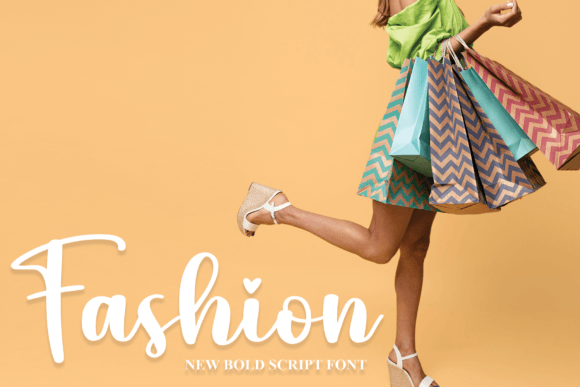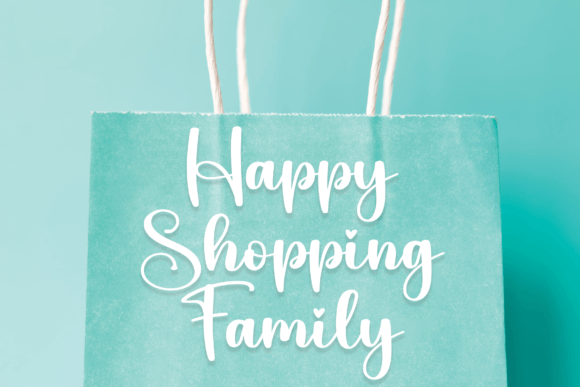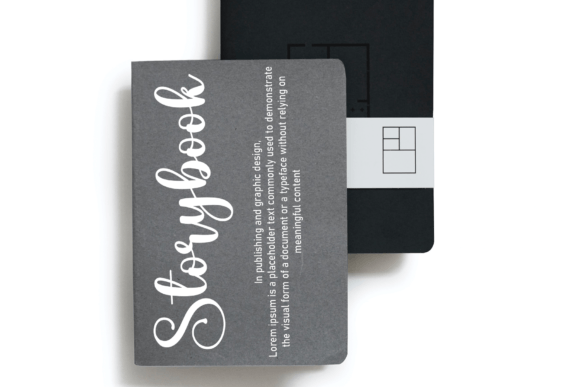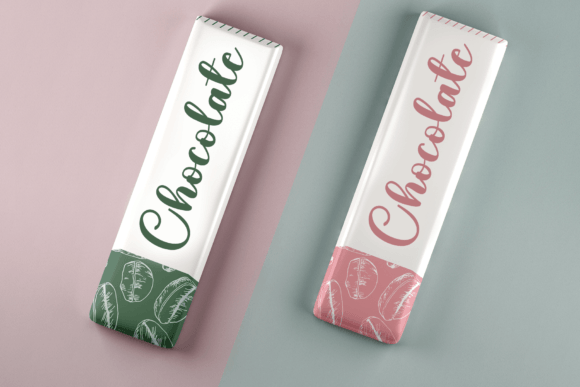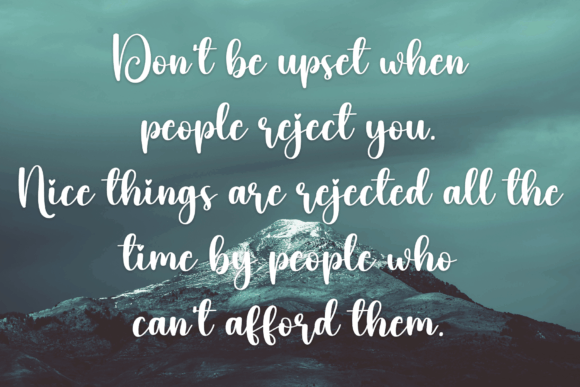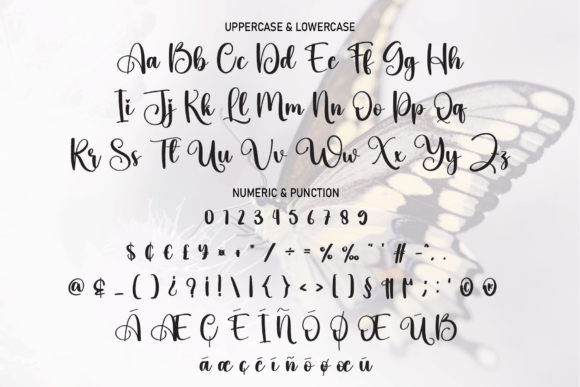
The Art of Beautiful Design
Have you ever stared at a beautiful hand-drawn font and felt inspired to create something magical? That’s exactly what happened to me when I first laid eyes on the latest style letters from Beautiful Butterfly Font. The delicate curves and whimsical touches evoke a sense of wonder and romance, making it the perfect addition to any design project.
Beautiful Butterfly Font is a versatile and charming typeface designed to add a personal touch to various projects. Whether it’s a wedding invitation, social media post logo, or product packaging, this font brings a unique and handwritten feel that sets it apart from the ordinary. For designers, it’s a valuable asset that can elevate their work and make it stand out in a crowded market.
Beautiful Butterfly Font Key Features
- Font Family: Beautiful Butterfly Font is a unique, hand-drawn font designed to resemble the delicate features of a butterfly.
- Unique Characteristics: Features intricate details, such as subtle texture and delicate flourishes, to evoke a sense of whimsy and elegance.
Design Review: Beautiful Butterfly Font
Overall, I think the Beautiful Butterfly Font has a certain charm to it. The whimsical design and delicate lines evoke a sense of elegance and sophistication ✨. The font’s playfulness is sure to add a touch of personality to any design project.
The font’s key strengths include:
- Its unique and distinctive style, which sets it apart from more generic fonts.
- Its high level of customization options, allowing designers to tailor the font to their specific needs.
However, there are also some potential drawbacks to consider ⚠️:
- The font may not be suitable for all types of projects, particularly those that require a more formal or professional tone.
- The font’s intricate design may make it difficult to read at smaller font sizes.
- The font’s unique style may not appeal to all designers or audiences.
Overall, I think the Beautiful Butterfly Font is a great choice for designers who want to add a touch of whimsy and personality to their projects. While it may not be suitable for all types of projects, its unique design and customization options make it a valuable addition to any designer’s toolkit.
Getting the Most Out of Beautiful Butterfly Font
For optimal results, use Beautiful Butterfly Font in conjunction with other creative elements, such as illustrations or graphics, to create a visually striking design. Experiment with different font sizes, colors, and styles to achieve the desired effect.
Beautiful Butterfly Font is ideal for:
- Children’s book illustrations and design
- Party and event invitations
The Beautiful Butterfly Font is a whimsical, hand-drawn script font, but there are other options available for designers looking for a similar aesthetic.
Q: Does the Beautiful Butterfly Font support ligatures and contextual alternates?
Yes, the Beautiful Butterfly Font includes ligatures and contextual alternates, which are enabled by default. These features can be turned off in your design application if desired. Ligatures can be used to create more elegant and connected letterforms, while contextual alternates can be used to create more nuanced and expressive typography.